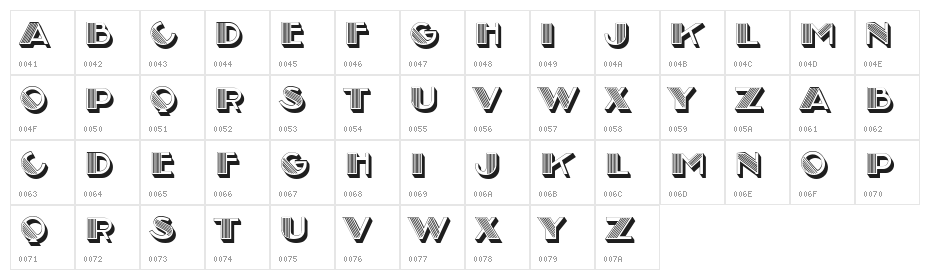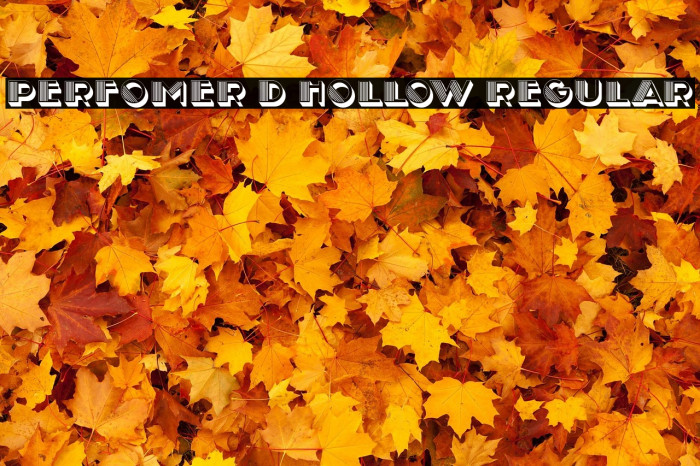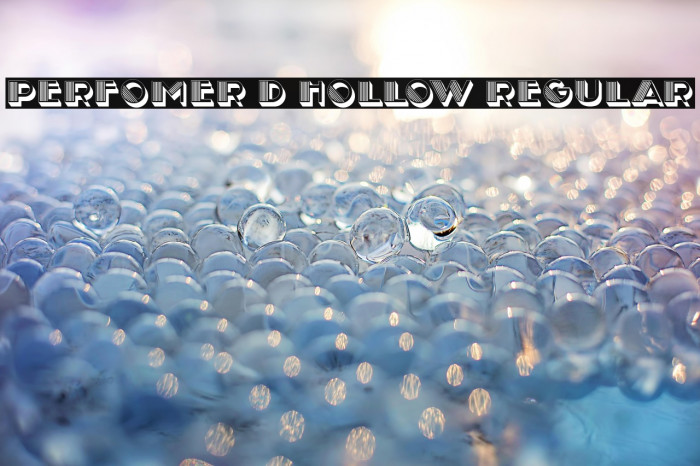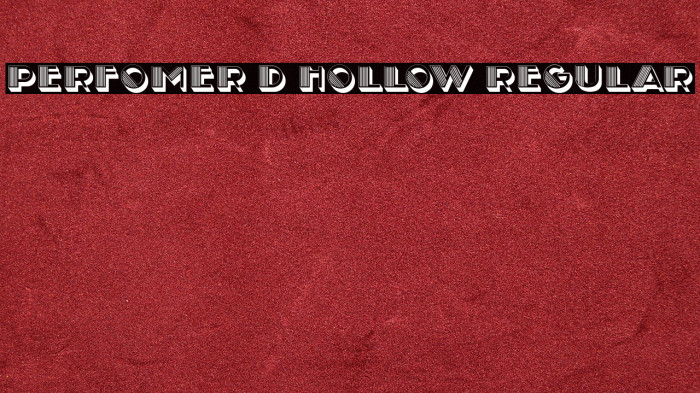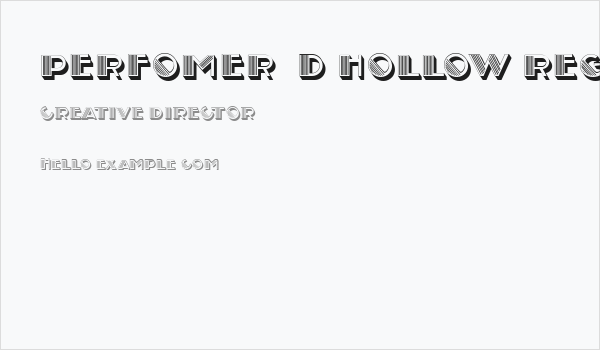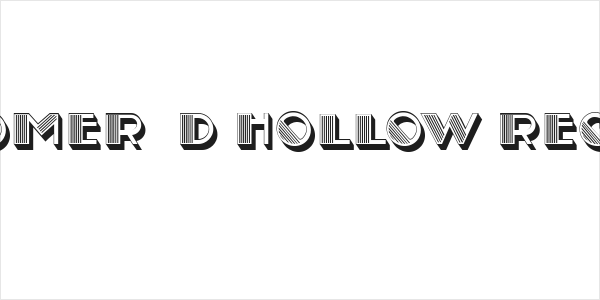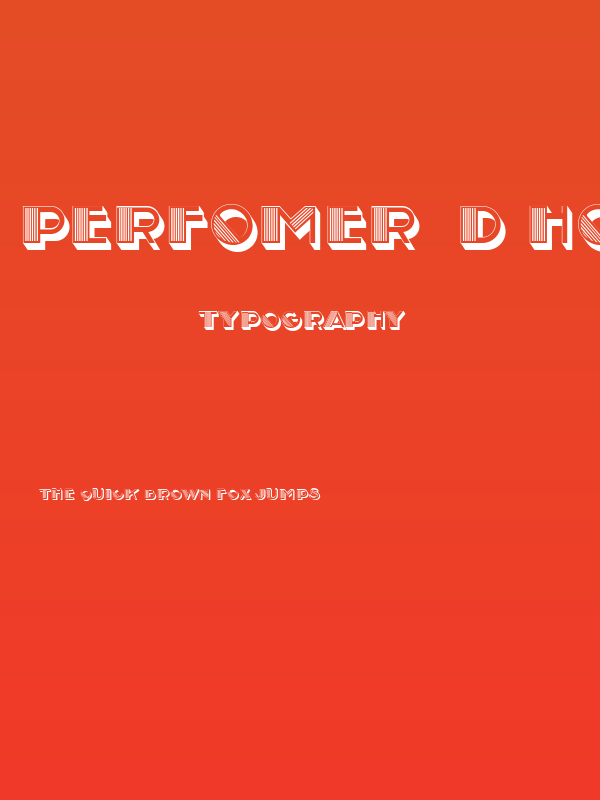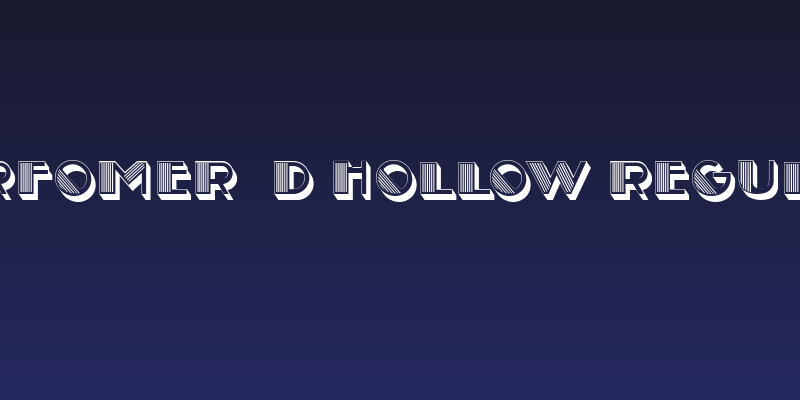
Perfomer 3D Hollow Regular Font
Perfomer 3D Hollow Regular Description
This font features a bold, three-dimensional design with a hollow interior, giving it a striking and dynamic appearance. The letters are capitalized and exhibit a strong geometric structure, with sharp angles and clean lines. The 3D effect is enhanced by the use of shadows and highlights, creating a sense of depth and movement. The hollow aspect allows for a unique interplay of negative space, making the font both eye-catching and versatile. It is ideal for projects that require a bold statement and can be used effectively in various design contexts.